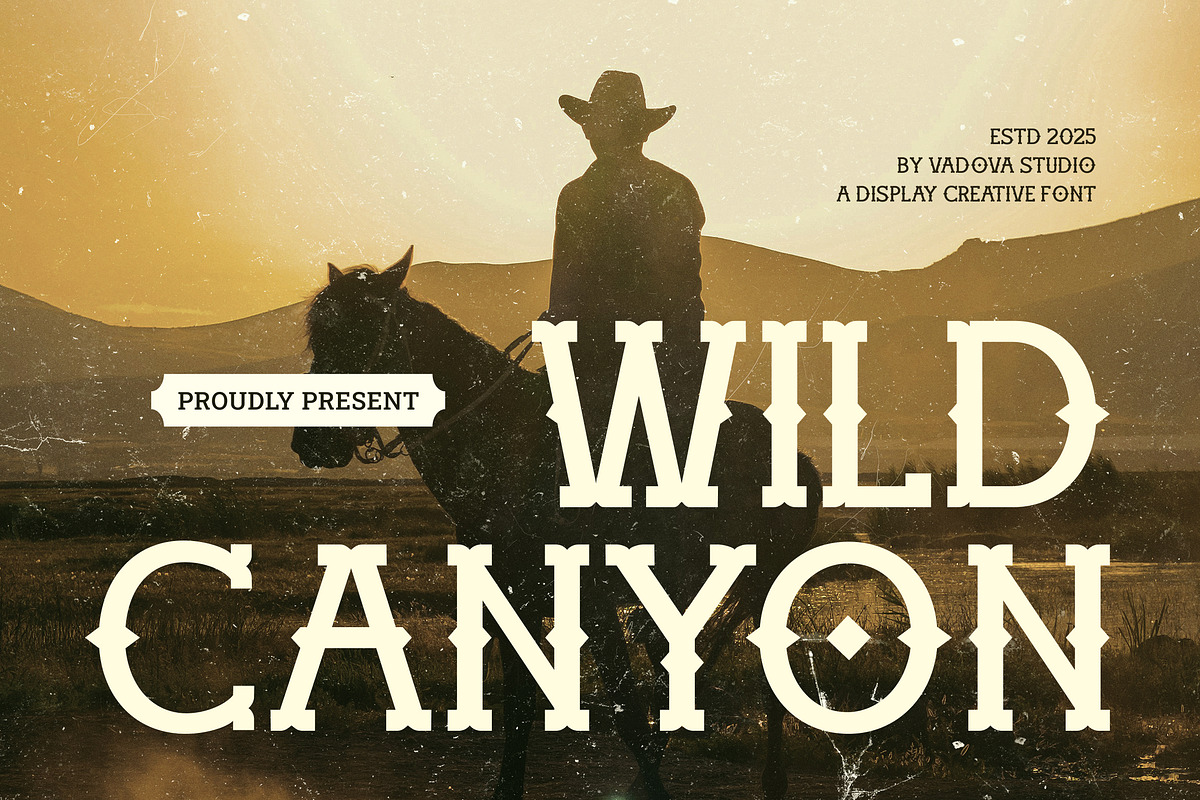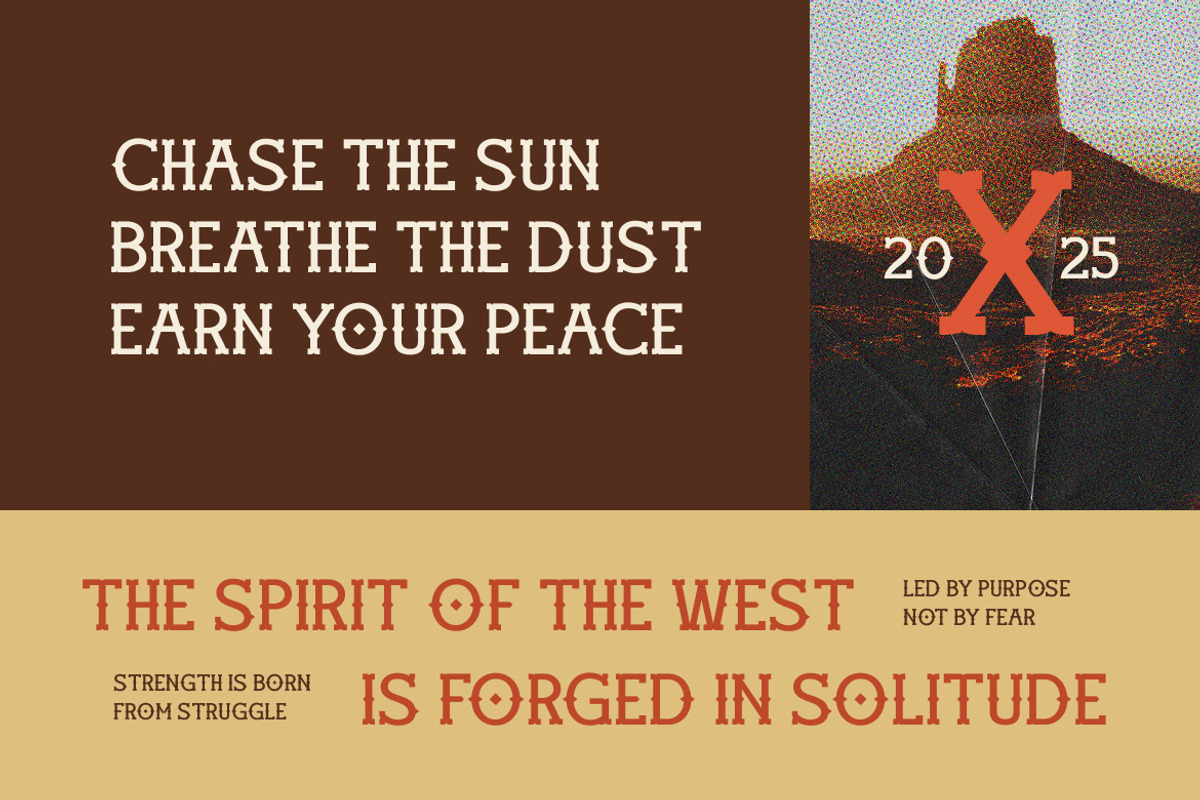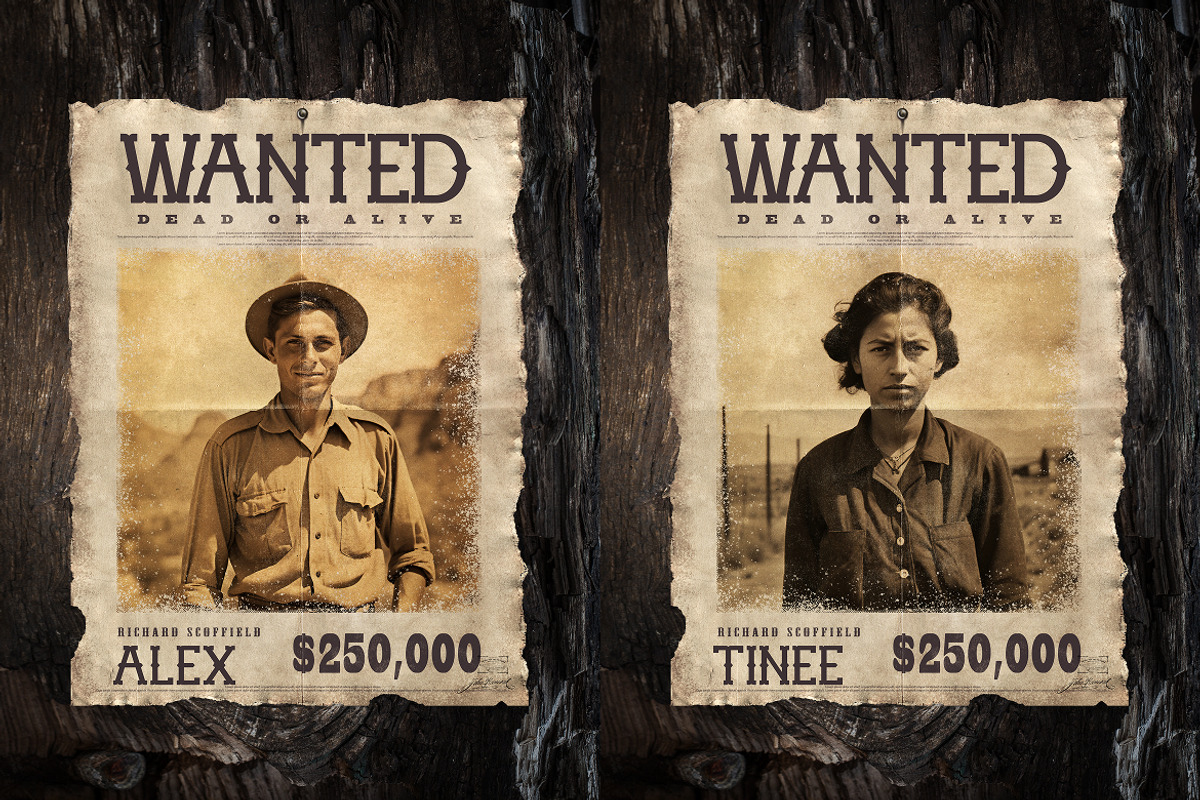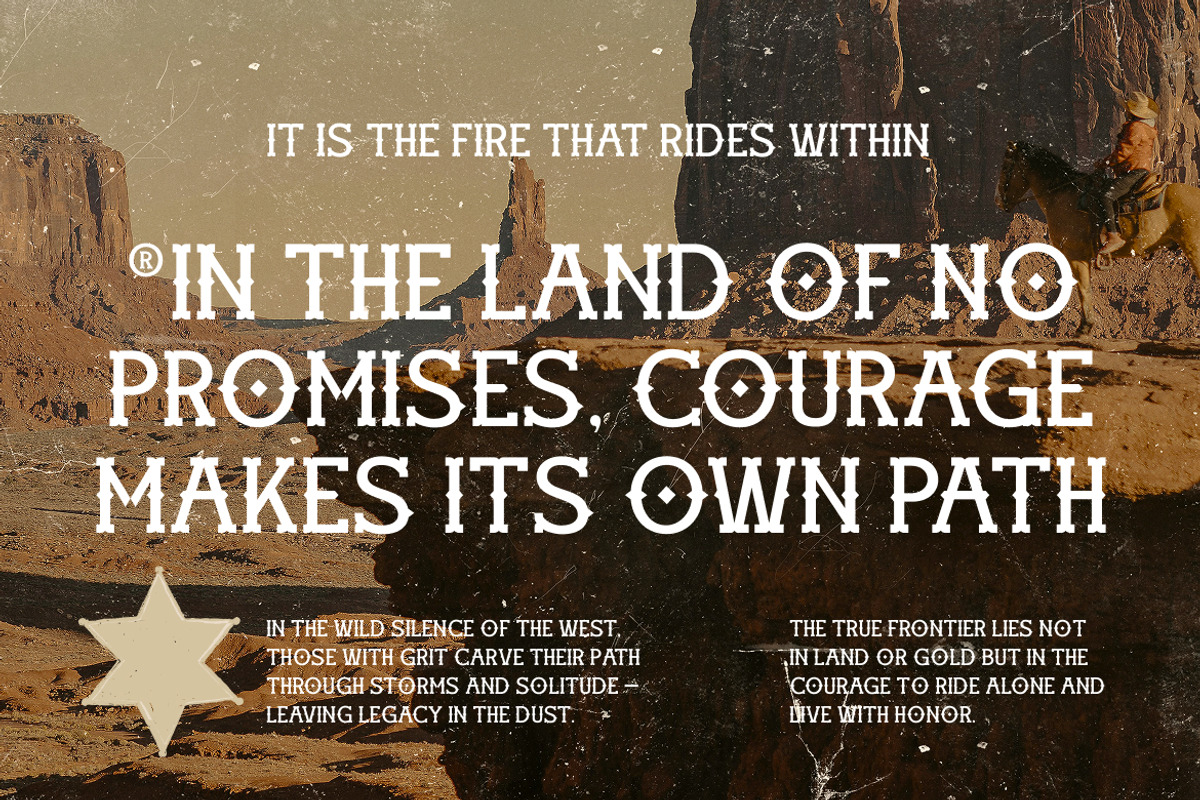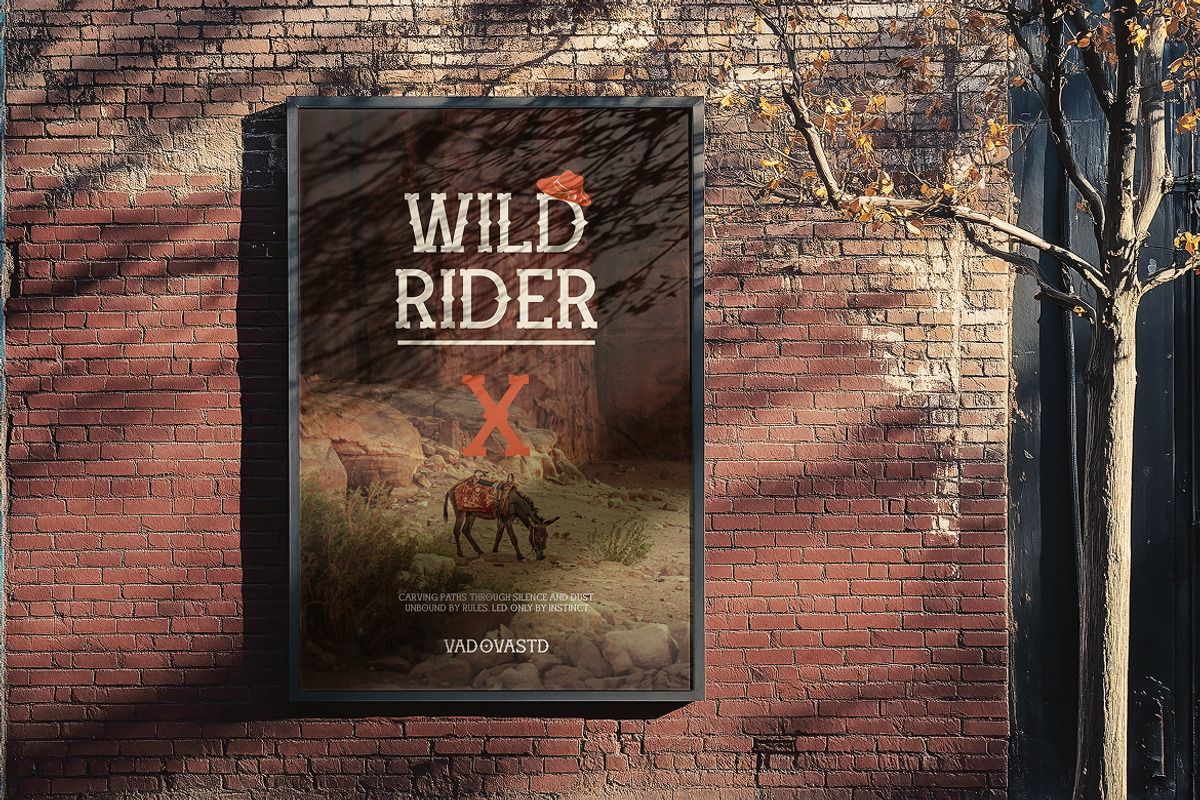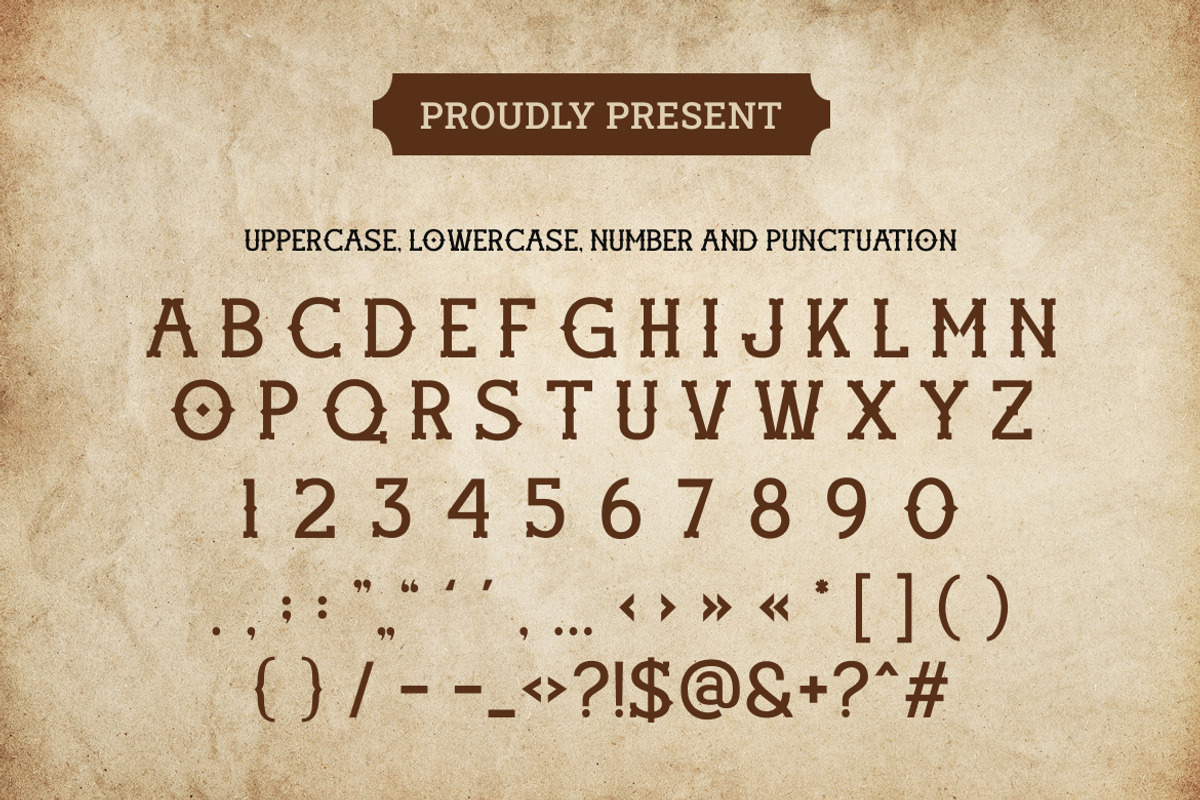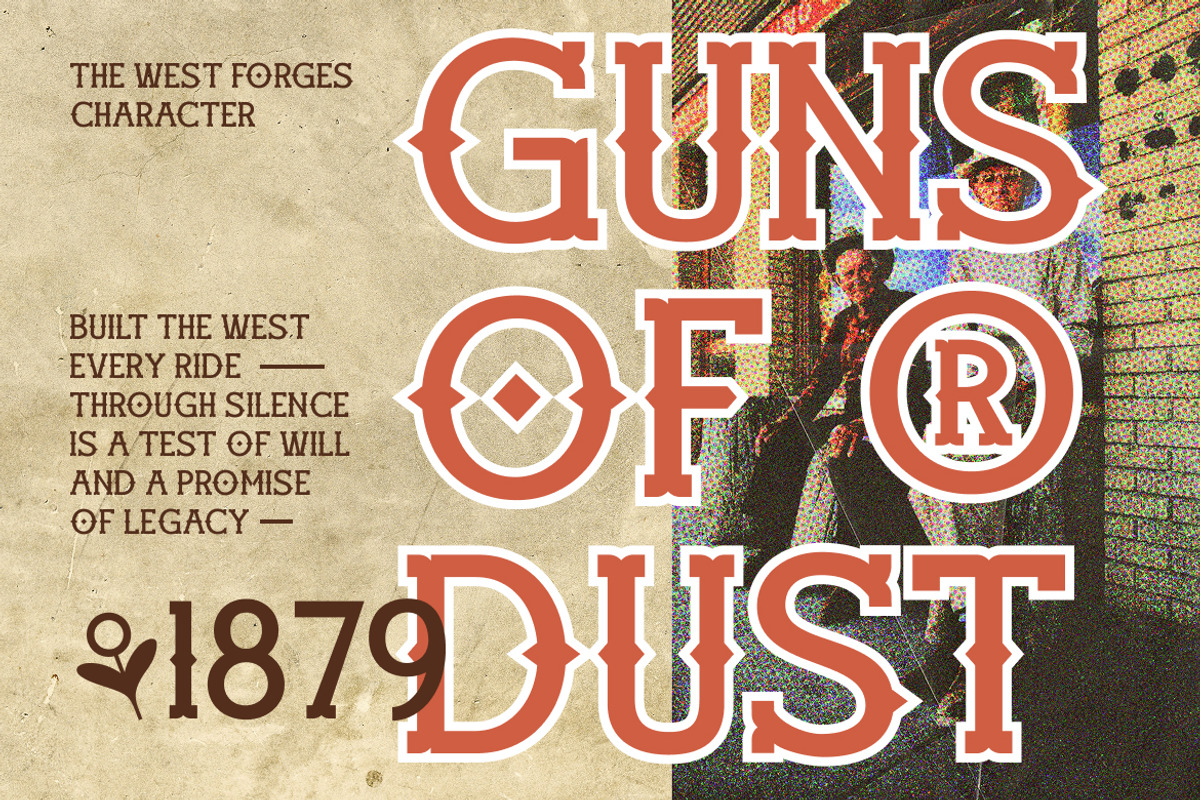
Wild Canyon – Western Slab Serif
Wild Canyon is a bold Western-style slab serif font that evokes the untamed spirit of the Old West. With its sturdy serifs, angular edges, and vintage proportions, this typeface captures the essence of cowboy posters, rodeo signage, and desert adventures. Each letter carries a weathered charm, making it perfect for designs that need a bold and nostalgic Western aesthetic.
Font Highlights
Western-style slab serif typeface
Sharp terminals and bold slab forms
Uppercase, lowercase, numerals, punctuation
Ideal for large headlines and rustic branding
Why Designers Love Wild Canyon
Authentic Western Character – Perfectly crafted to evoke vintage Americana.
Strong Presence – Bold letterforms demand attention in titles and posters.
Versatile Styling – Suitable for retro, adventure, and outdoor themes.
Nostalgic Texture – Balances modern usability with rustic charm.
Relevance and Use Cases is perfect for cowboy movie titles, western-themed posters, vintage branding, outdoor adventure packaging, whiskey labels, signage, apparel design, rodeo events, and rustic product logos.